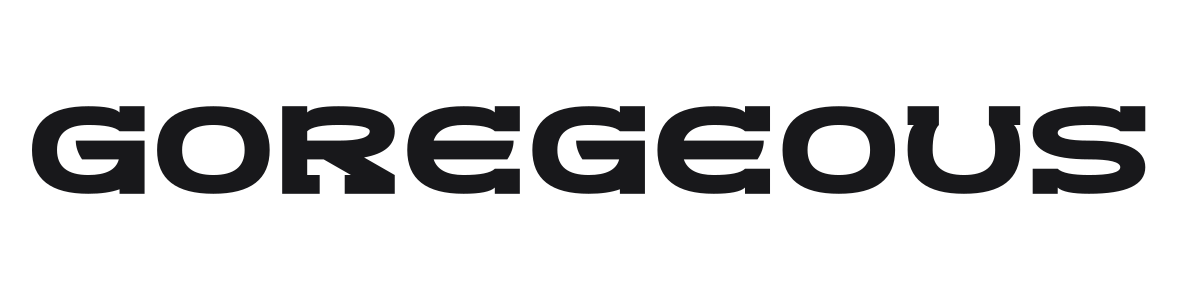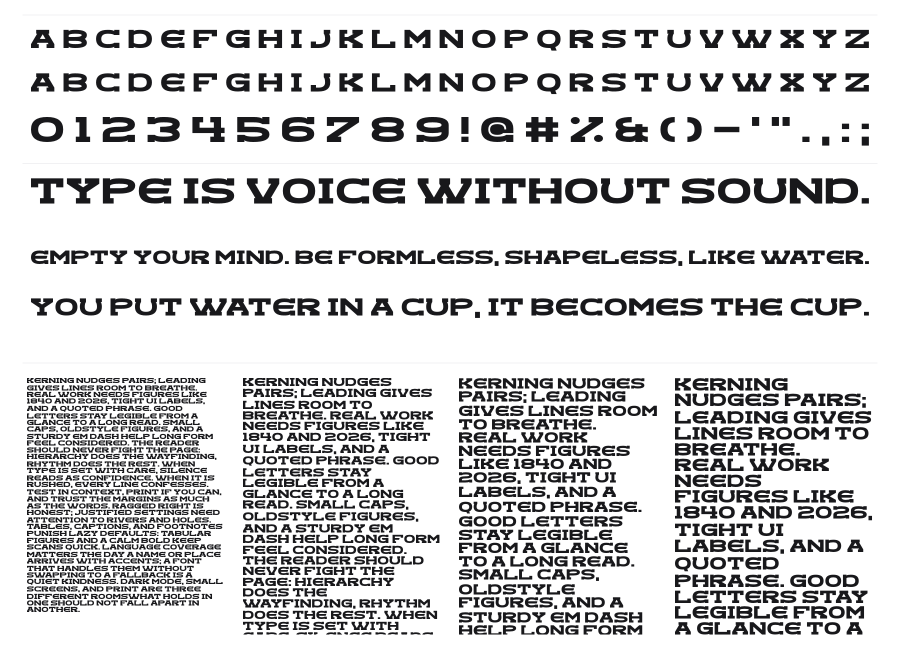
Goregeous
Gorege is a heavy, wide display font with a bold industrial character drawn from Cold War-era utilitarian lettering. Squared terminals, notched joins, and near-zero stroke contrast give it a mechanical, slab-influenced density. It commands attention at large sizes and suits aggressive headline work in gaming, sports, and entertainment.